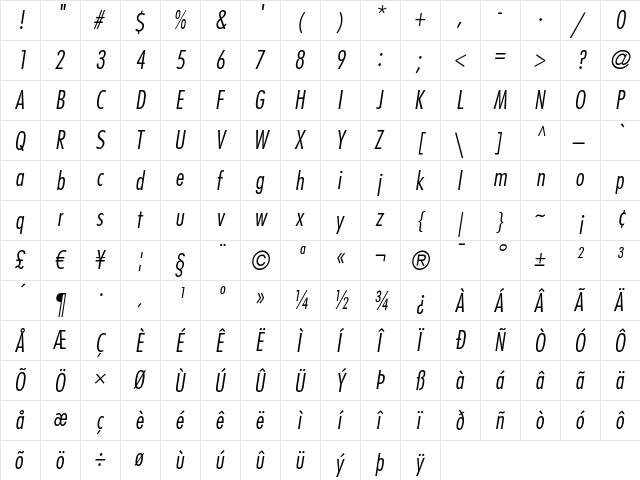
Futura LT CondensedLightObl Font Preview
Design Context for Futura LT Typeface
Futura LT channels digital-age aesthetics through its sharp, structured letterforms — ideal for brands that want to signal innovation. Its slender proportions lend an understated elegance to any composition. Its narrow stance lets it pack a punch even in space-constrained designs.
Pro Tip: Use Futura LT in combination with a neutral sans for body text. Let it define the brand voice in headlines while keeping reading comfortable elsewhere.